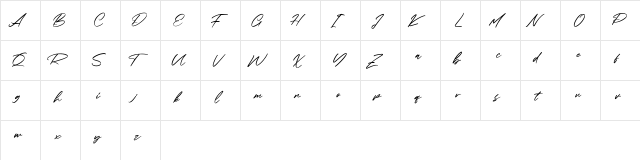
Dawsons Script Free Regular
| Foundry | Maulana Creative |
| Designer | Maulana Creative |
Design Context for Dawsons Script Free Typeface
Dawsons Script Free brings a calligraphic fluidity to the page — its connecting strokes and expressive curves give it an unmistakably human quality.